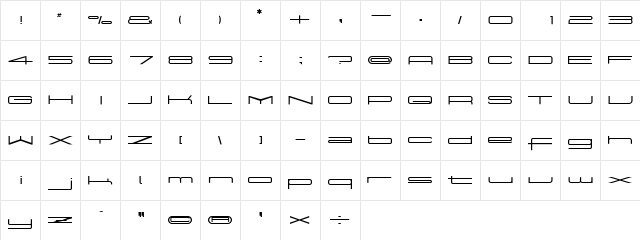
Crawler Medium
Design Context for Crawler Typeface
Crawler is a composed and adaptable typeface that performs quietly and consistently across a wide range of design contexts.